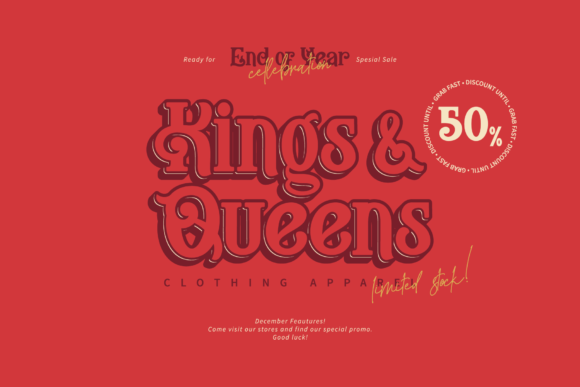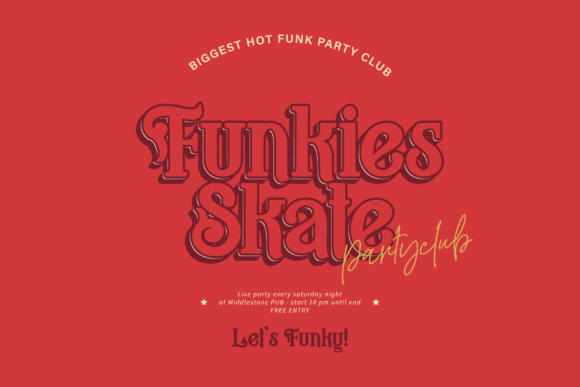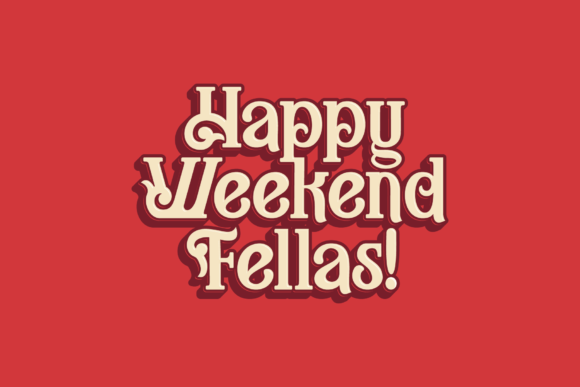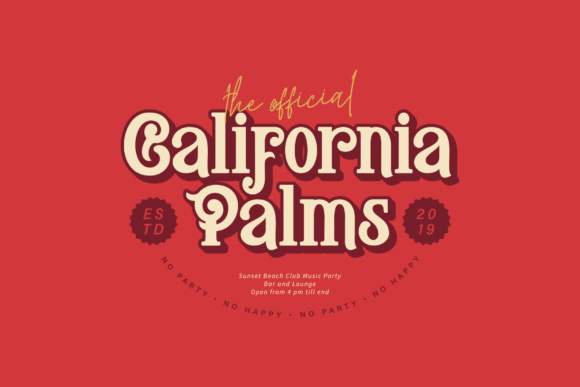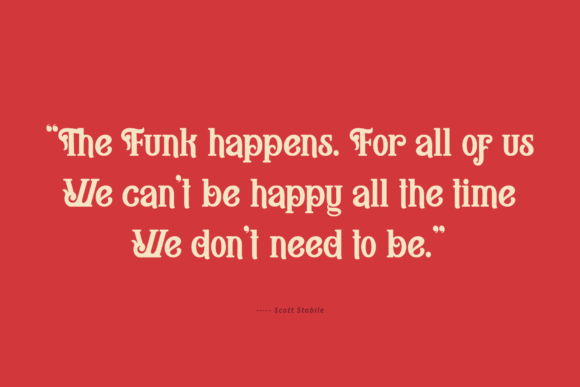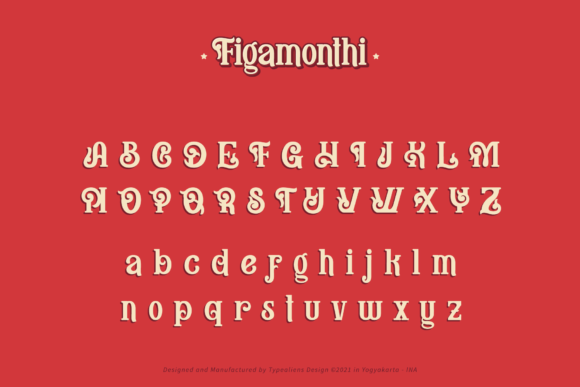
Introducing Figamonthi Font: Elevate Your Crafting Ideas with Elegance and Charm
Are you a designer, crafter, or DIY enthusiast looking for a font that exudes elegance, sophistication, and vintage charm? Look no further than Figamonthi Font, a stunning display font that’s perfect for delivering messages with confidence, authenticity, and style.
What is Figamonthi Font?
Figamonthi Font is a beautifully crafted display font that’s inspired by the classic typography of the past. Its elegant and vintage design makes it an ideal choice for a wide range of crafting ideas, from greeting cards and invitations to branding, labels, and more.
Key Features of Figamonthi Font
- Elegant and Vintage Design: Figamonthi Font boasts a sophisticated and classic design that’s reminiscent of traditional typography.
- Display Font: This font is specifically designed for display purposes, making it perfect for headlines, titles, and short messages.
- Confidence and Authenticity: Figamonthi Font is designed to deliver messages with confidence and authenticity, making it ideal for branding and marketing materials.
- Charming and Sophisticated: The font’s elegant design and classic feel make it perfect for crafting ideas that require a touch of sophistication and charm.
Uses of Figamonthi Font
Figamonthi Font is a versatile font that can be used for a wide range of crafting ideas, including:
- Greeting Cards: Add a touch of elegance to your greeting cards with Figamonthi Font.
- Invitations: Make your invitations stand out with this beautiful and sophisticated font.
- Branding: Use Figamonthi Font to create stunning brand identities that exude confidence and authenticity.
- Labels: Add a touch of vintage charm to your labels with Figamonthi Font.
- Packaging: Use this font to create eye-catching packaging that stands out from the crowd.
Why Choose Figamonthi Font?
With so many fonts available, why choose Figamonthi Font? Here are just a few reasons:
- Unique Design: Figamonthi Font has a unique and distinctive design that sets it apart from other fonts.
- High-Quality: This font is crafted with high-quality design principles, ensuring that it looks great in any context.
- Versatility: This font can be used for a wide range of crafting ideas, making it a great addition to any designer’s toolkit.
Tips for Using Figamonthi Font
Here are a few tips for getting the most out of Figamonthi Font:
- Use it sparingly: Figamonthi Font is a display font, so use it sparingly to make the most impact.
- Pair it with other fonts: Experiment with pairing Figamonthi Font with other fonts to create interesting and dynamic typography.
- Adjust the size and color: Play around with different sizes and colors to find the perfect combination for your crafting idea.